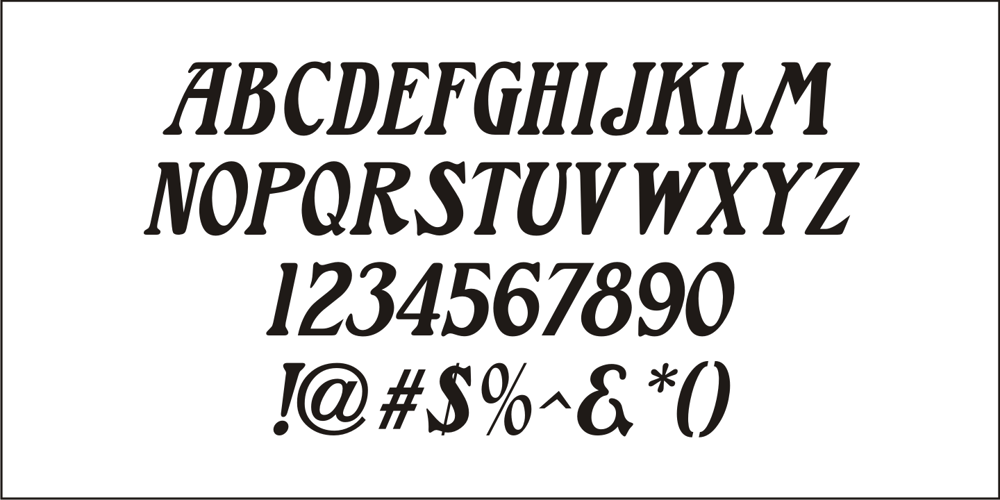
Nouveau Years JNL
Nouveau Years JNL Font Family was designed by Jeff Levine and published by Jeff Levine. Nouveau Years JNL contains 2 styles and family package options. Sheet music at the beginning of the 20th Century reflects both the musical and artistic tastes of the times in often colorful ways. It seemed to be a favorite thing amongst songwriters of that era to come up with very wordy song titles. The cover of the sheet music for 1907’s “Every Little Bit Added to What You’ve Got Makes Just A Little Bit More” checks in at fourteen words, but the hand lettered title (done in an Art Nouveau style) made it worthy of transposition into a digital type face. Nouveau Years JNL is available in both regular and oblique versions.